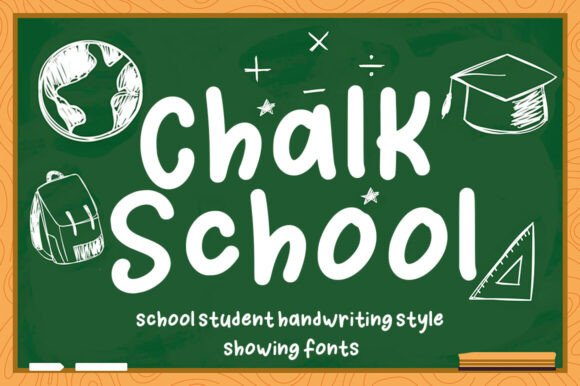
Introducing Chalk School Font: The Perfect Playful Handwritten Font for Educational Designs
Are you looking for a font that captures the classic look of chalk on a school blackboard? Look no further than the Chalk School Font. This playful handwritten font is inspired by the nostalgic feel of traditional school blackboards, bringing a fun, friendly, and educational vibe to your designs. In this article, we’ll explore the features and benefits of the Chalk School Font, and how it can elevate your designs related to school, children, and classroom settings.
The Inspiration Behind Chalk School Font
The Chalk School Font is inspired by the classic look of chalk on a school blackboard. The font’s creator aimed to capture the essence of traditional school blackboards, where teachers would write notes and lessons in chalk. The result is a playful handwritten font that exudes a sense of nostalgia and familiarity.
The font’s design is characterized by its irregularities and imperfections, reminiscent of handwriting on a blackboard. The letters are playful and whimsical, with varying line widths and a dash of randomness. This unique design makes the Chalk School Font perfect for designs that require a friendly and approachable tone.
Key Features of Chalk School Font
- Playful Handwritten Style: The Chalk School Font features a playful handwritten style that is perfect for designs that require a personal touch.
- Inspired by Traditional School Blackboards: The font’s design is inspired by the classic look of chalk on a school blackboard, giving it a unique and nostalgic feel.
- Irregularities and Imperfections: The font’s irregularities and imperfections add to its playful and whimsical nature.
- Variations in Line Widths: The font features varying line widths, giving it a dynamic and hand-drawn feel.
- Multilingual Support: The Chalk School Font supports multiple languages, making it a versatile choice for designs that require international appeal.
Benefits of Using Chalk School Font
The Chalk School Font offers several benefits for designers and educators looking for a font that can add a touch of personality to their designs. Some of the benefits include:
- Unique and Eye-Catching Designs: The Chalk School Font’s playful handwritten style makes it perfect for creating unique and eye-catching designs.
- Educational and Child-Friendly: The font’s educational and child-friendly vibe makes it perfect for designs related to school, children, and classroom settings.
- Easy to Read: Despite its playful nature, the Chalk School Font is easy to read, making it perfect for body text and headings.
- Customizable: The font’s irregularities and imperfections make it easy to customize and modify to fit your design needs.
Use Cases for Chalk School Font
The Chalk School Font is perfect for a variety of design projects, including:
- Educational Materials: The font is perfect for creating educational materials, such as textbooks, workbooks, and worksheets.
- Classroom Decor: The font can be used to create classroom decor, such as posters, charts, and labels.
- Children’s Products: The font is perfect for designing children’s products, such as toys, games, and stationery.
- School Websites and Blogs: The font can be used to create a friendly and approachable tone for school websites and blogs.
Tips for Using Chalk School Font
Here are some tips for using the Chalk School Font effectively in your designs:
- Use it for Headings and Titles: The font’s playful nature makes it perfect for headings and titles.
- Pair it with a Sans-Serif Font: Pairing the Chalk School Font with a sans-serif font can create a nice contrast and make your designs more readable.
- Experiment with Colors: The font’s playful nature makes it perfect for experimenting with different colors and textures.
- Use it for Body Text: Despite its playful nature, the Chalk School Font is easy to read, making it perfect for body text.
The Chalk School Font is a playful handwritten font that is perfect for designs related to school, children, and classroom settings. Its unique and nostalgic feel, combined with its playful and whimsical nature, make it a versatile choice for a variety of design projects. With its ease of use, customizability, and multilingual support, the Chalk School Font is a great addition to any designer’s toolkit.